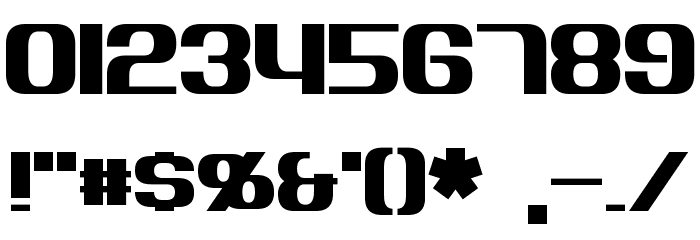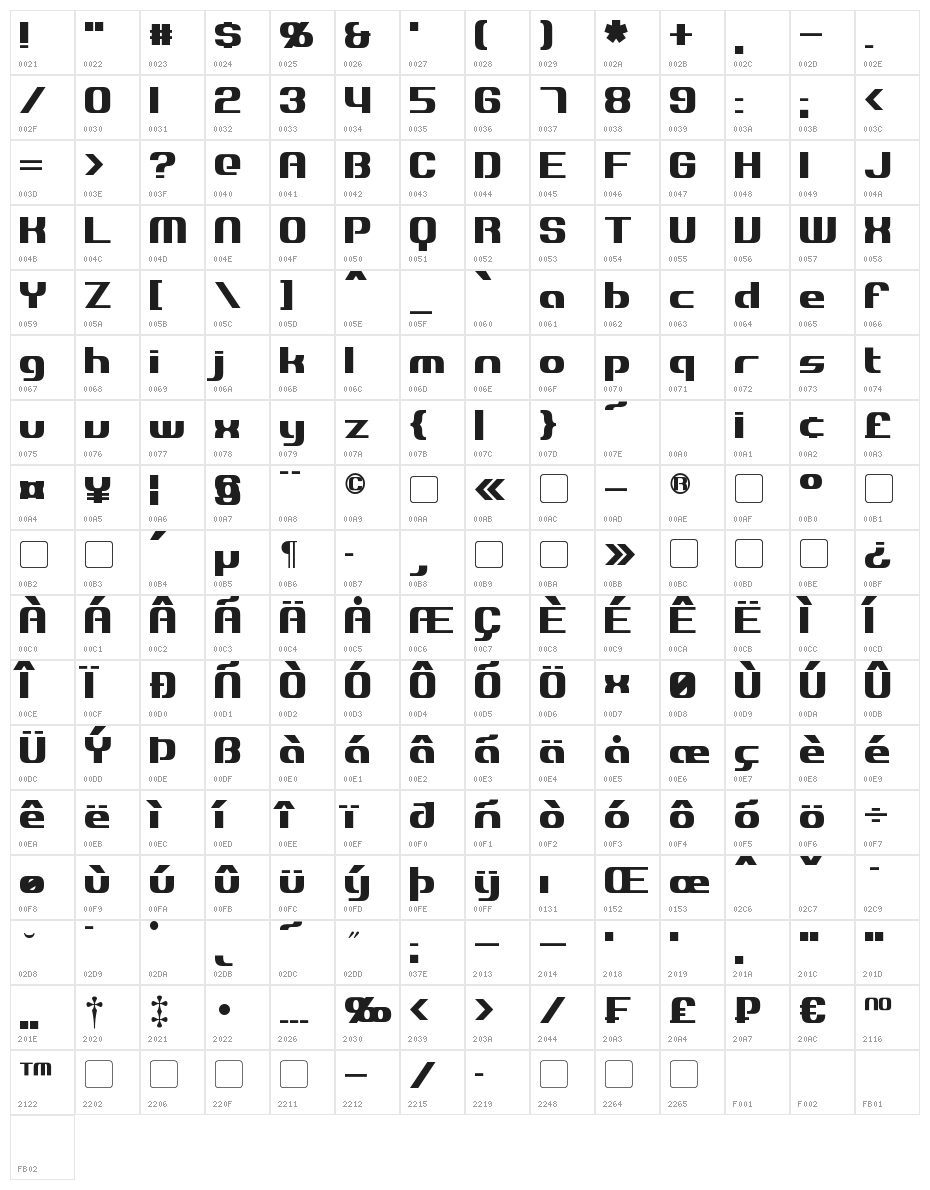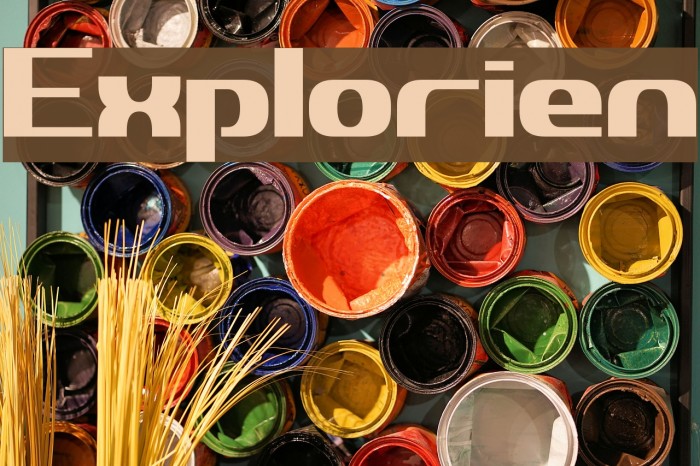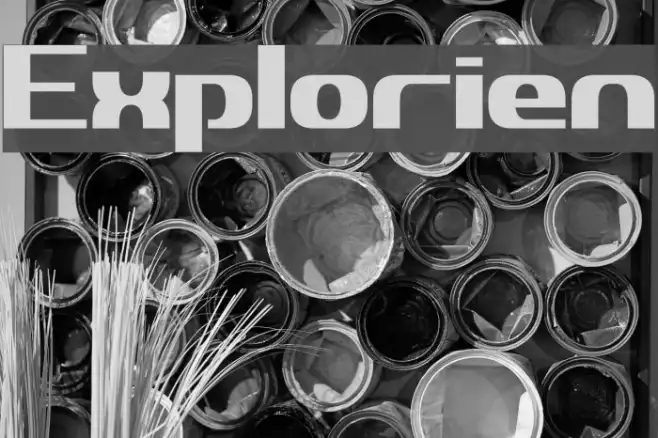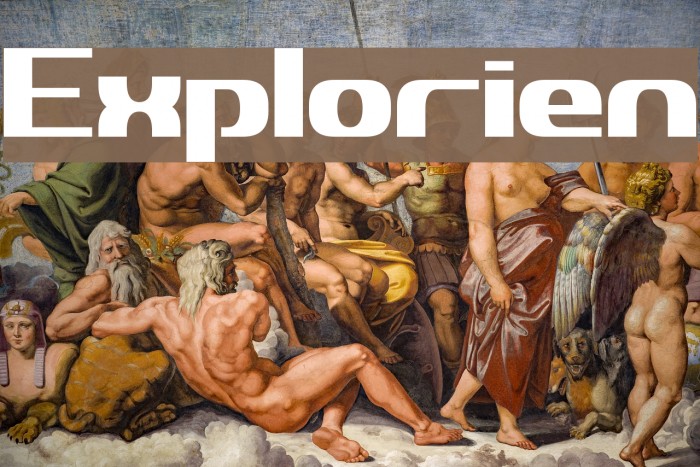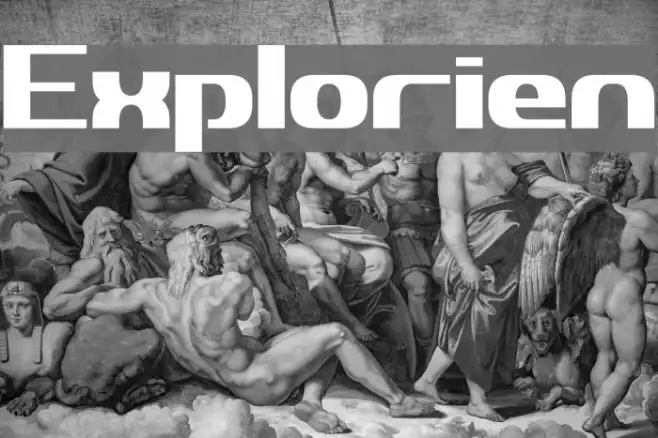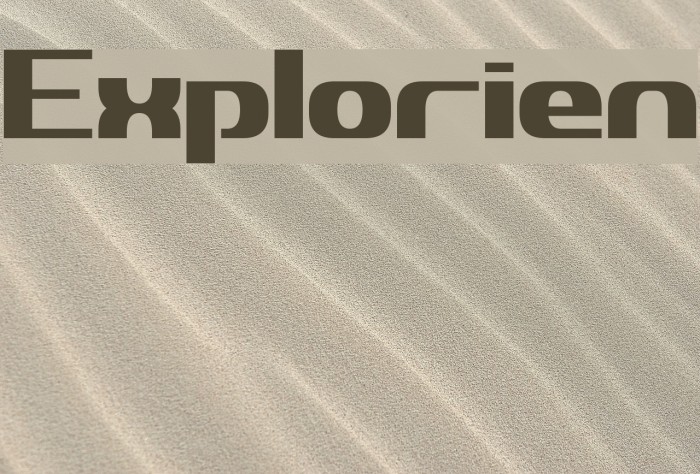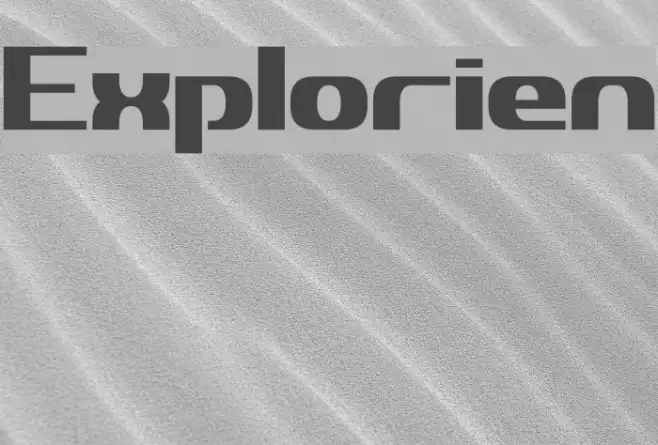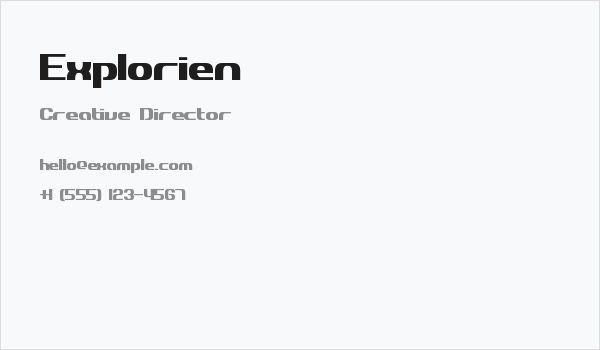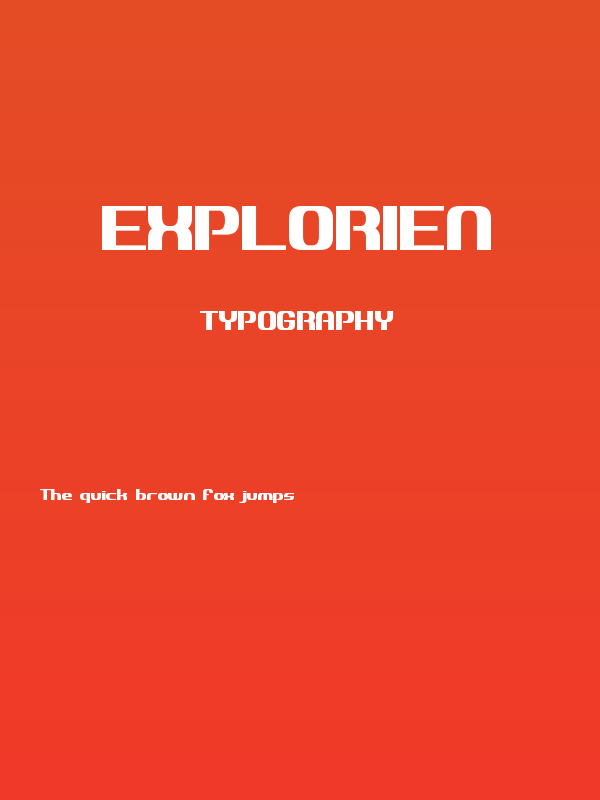
Explorien Font
Explorien Description
This font exhibits a bold and modern style with a distinct geometric influence. The characters are wide and have a strong presence, making them ideal for attention-grabbing headlines or titles. The uppercase letters are particularly striking with their uniform height and consistent stroke width, while the lowercase letters maintain a similar aesthetic with slightly softer curves. The numerals are clear and bold, ensuring readability. Special characters are designed to match the overall style, providing a cohesive look across all glyphs.